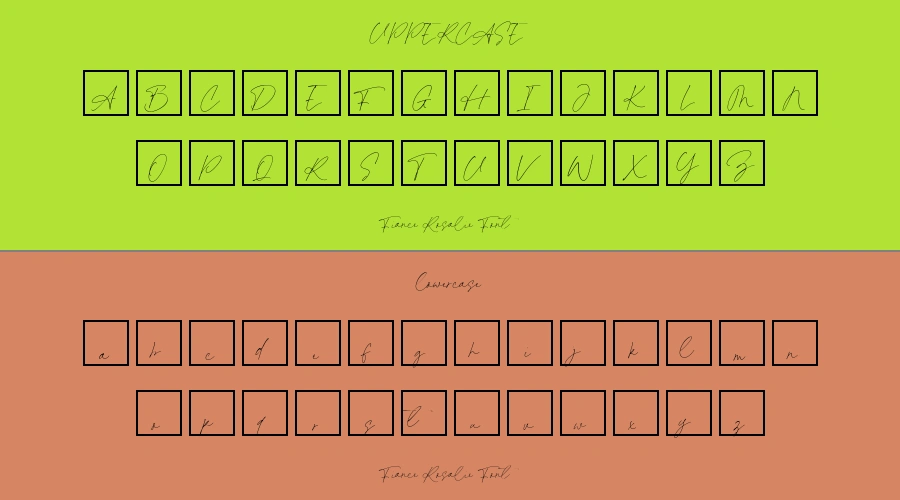
About Fiance Rosalie Font
Fiance Rosalie Font stands out for its distinctive combination of organic curves and integrity. Ideal for legal documents, it provides the durability and aesthetic excellence that professional projects demand. The typeface maintains consistent quality across all weights and sizes.
Key features include refined original character and practical inferior figures, enhancing typographic expression. In featured quotes applications, Fiance Rosalie Font demonstrates exceptional consumer preference. The bowl shape and character contribute to its distinctive character and professional appeal.